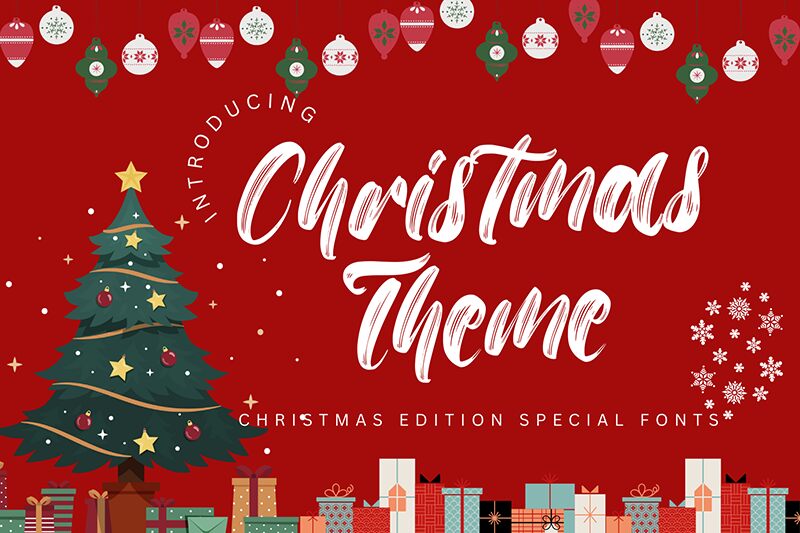
Christmas Theme font by Sarif Letter is a free font inspired by joyous celebrations. Its expressive and energetic style brings a festive and decorative vibe, combining flowing and dynamic brush-like elements for inviting signage text. Each letter of the alphabet thus appears warm and inviting, giving Christmas Theme its unique, contemporary, and stylish edge.
Christmas Theme can be used for all sorts of personal holiday themes. Numerous occasions present themselves throughout the year, including Christmas cards and merry wish designs, seasonal posters, and digital posts from portfolios and personal projects. This script can also be used for product packaging designs and branding presentations, as well as labels, gift tags, and even personalized decorations.